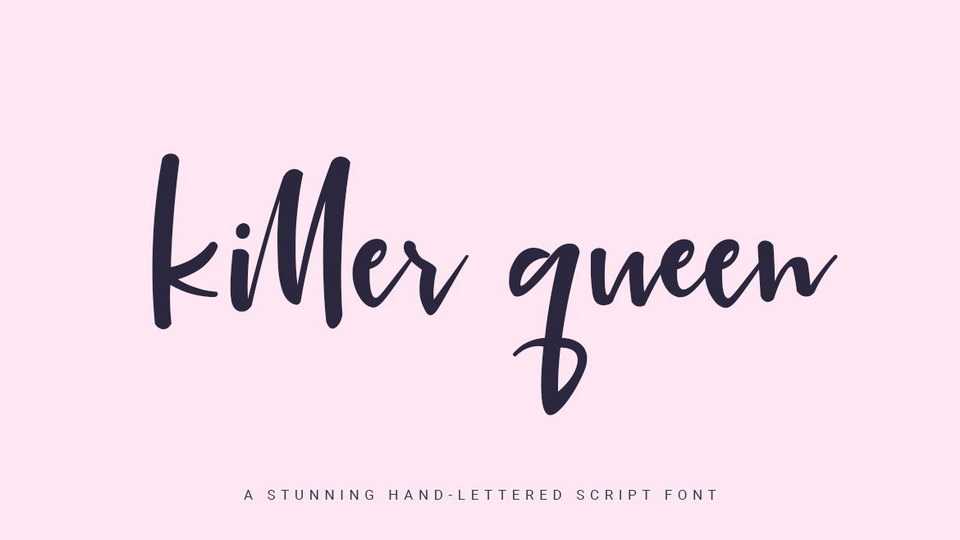
Download Killer Queen font, a stunning hand-lettered script. Killer Queen font is perfect for branding projects, wedding designs, advertisements, food, quotes and any projects that makes them extraordinary!
Designer: Bluetype